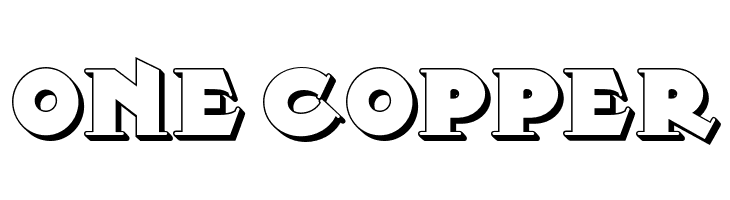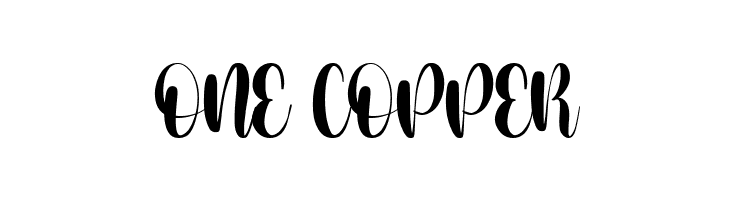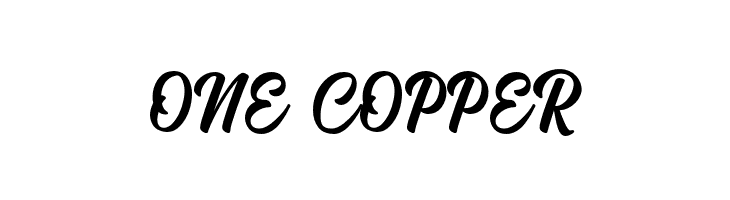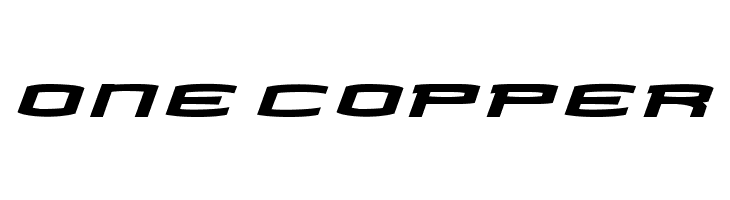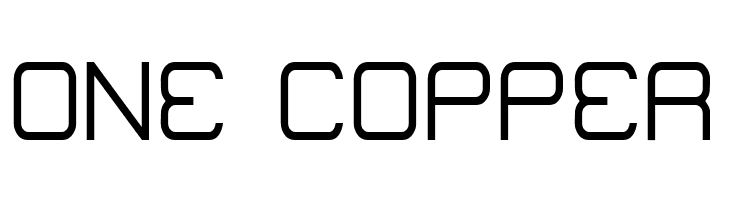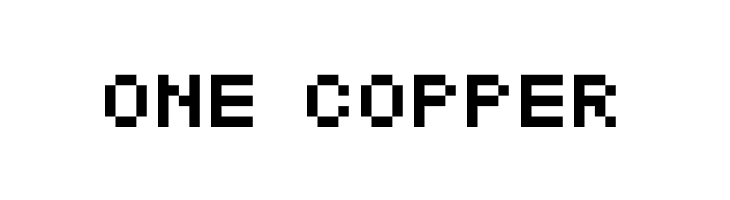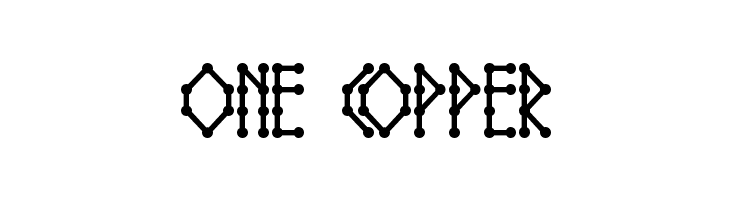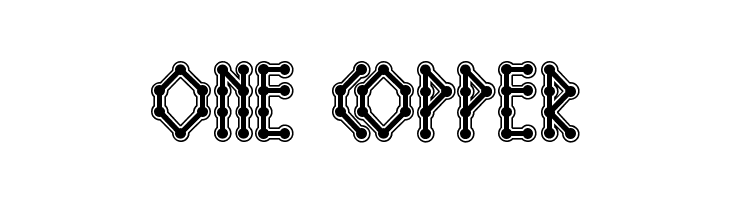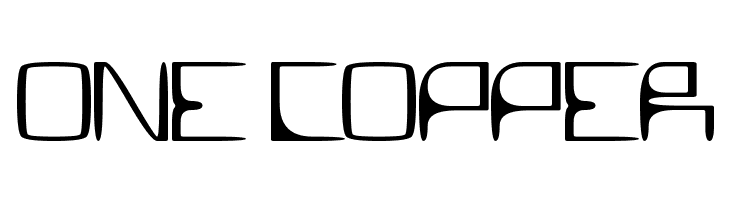
A bold, futuristic font with geometric and abstract elements.
A playful, handwritten font with dynamic strokes and a casual style.
A playful, handwritten font with bold, expressive strokes and a casual style.
A modern, geometric font with a double-line, hollow design.
A modern, cursive font with a smooth, connected style and moderate stroke thickness.
A geometric, dot-connected font with a futuristic, digital style.
A futuristic, dot-connected font with a tech-inspired design.
A bold, outlined collegiate-style font with a modern, decorative twist.
A bold, decorative collegiate-style font with a unique outlined design.
A display font using illustrated hands making an obscene gesture for each character.
A bold, hand-drawn font with an expressive and playful style.
A bold, shadowed font with a vintage flair, perfect for standout headlines.
A dynamic, expressive handwritten font with fluid, cursive letterforms.
A modern, italicized font with a futuristic, tech-inspired design.
A playful, bold font with rounded strokes and a bubbly appearance.
A playful and elegant script font with a flowing, handwritten style.
A playful, bold outline font with rounded, uniform strokes.
A bold, playful font with a hand-drawn, rounded style.
A bold, textured font with a hand-drawn, vintage feel.